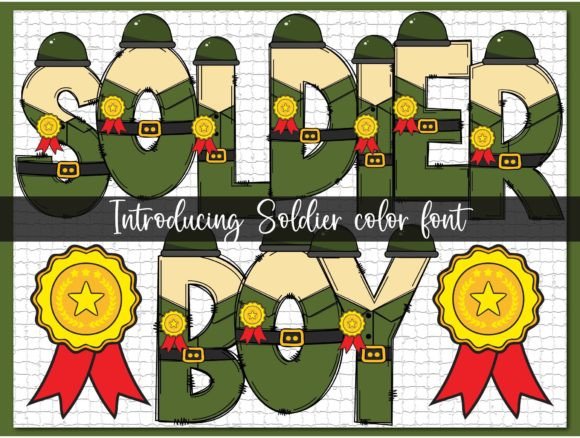
Introducing Soldier Boy Font - the ultimate solution to adding a touch of sophistication to your creative projects! Whether you're looking to revamp your brand identity, make a statement with your headlines, or just add a pop of color to your Instagram feed, this font is the perfect choice.
Designed by the experts at MDF, Soldier Boy is a colorful font that's sure to grab the attention of your audience. With its unique and original look, it's perfect for anyone looking to stand out from the crowd and make a lasting impression.
But that's not all - Soldier Boy is also incredibly versatile. It's the best font for fancy military projects, making it the ideal choice for anyone in the apparel industry, designing posters, or working on music, movies, games, magazines, books, comics, cartoons, YouTube, and websites.
So why choose Soldier Boy? With its cool and original-looking design, you can be sure that your projects will look professional and eye-catching. Plus, it's incredibly easy to use, making it the perfect choice for anyone - from beginners to seasoned designers.